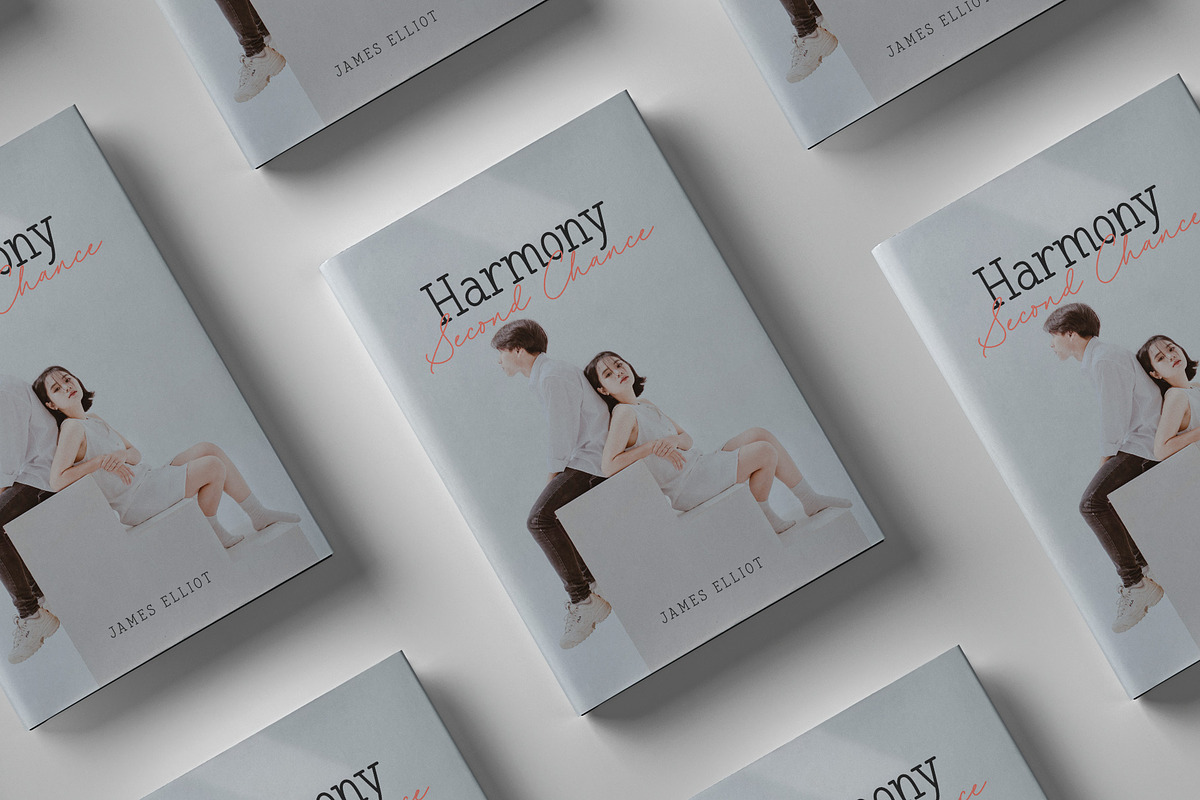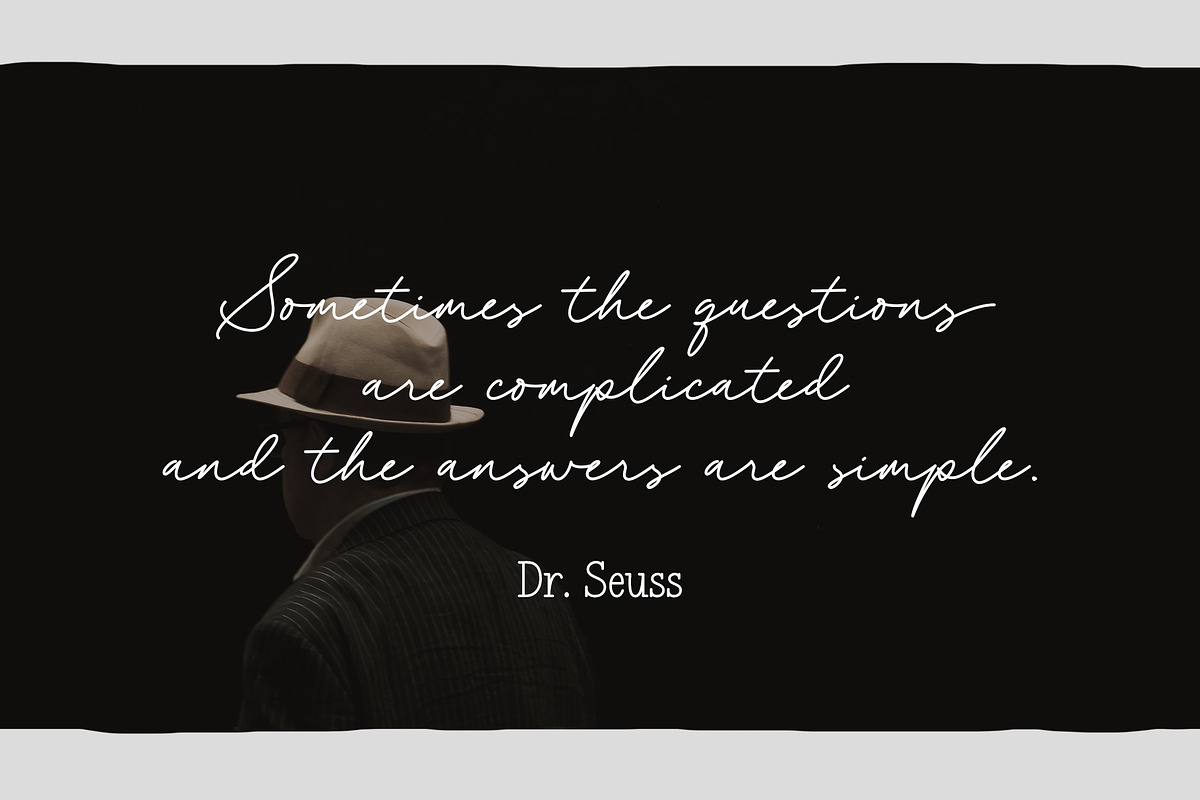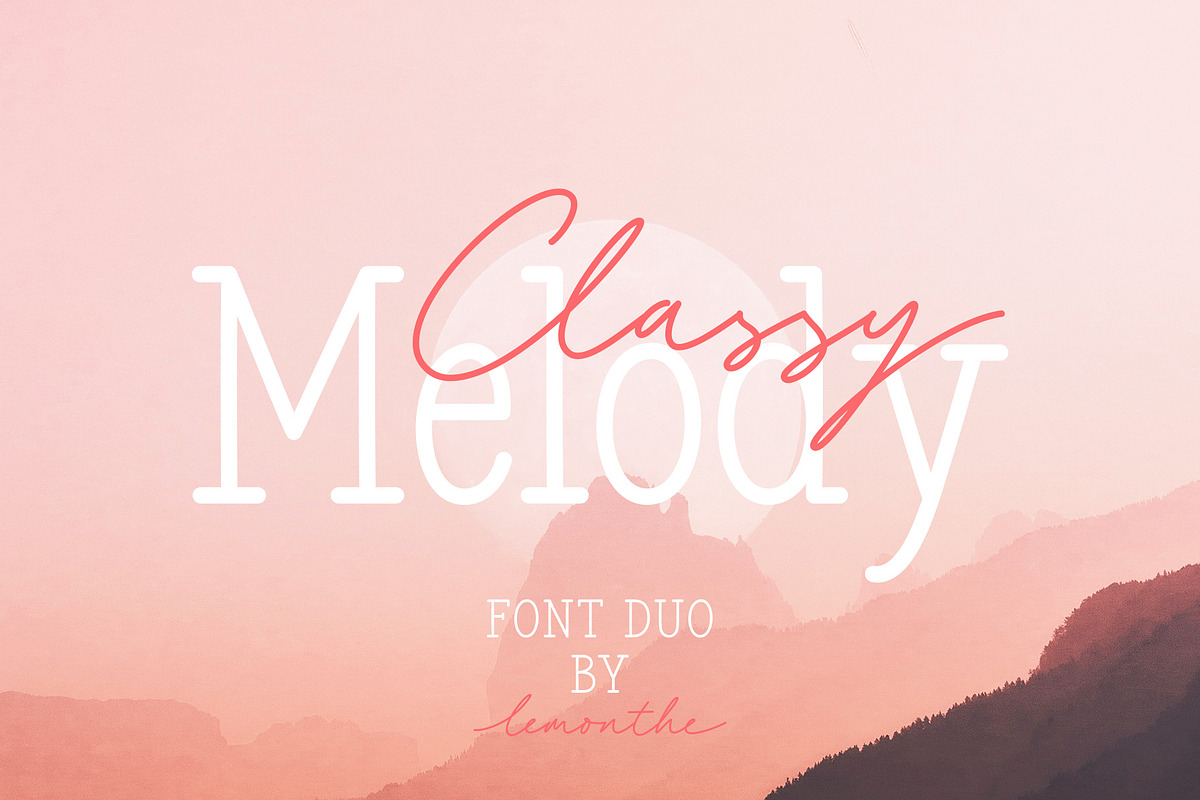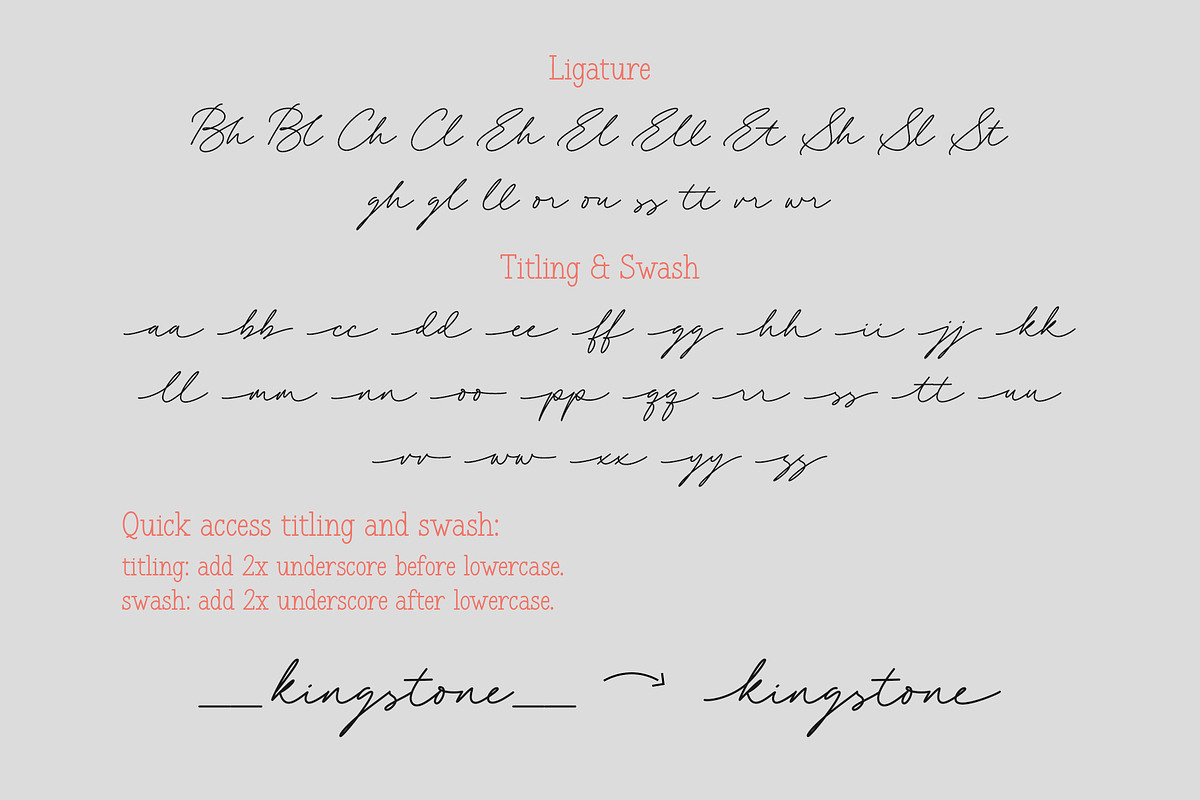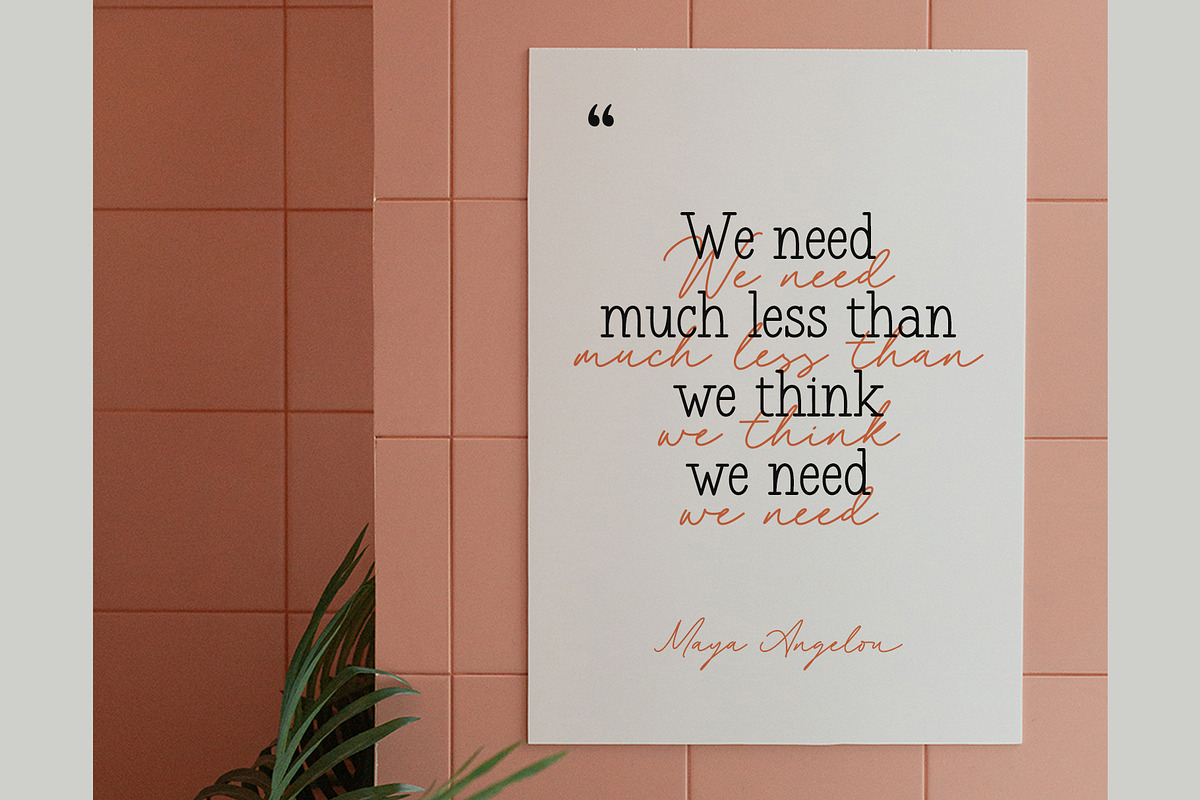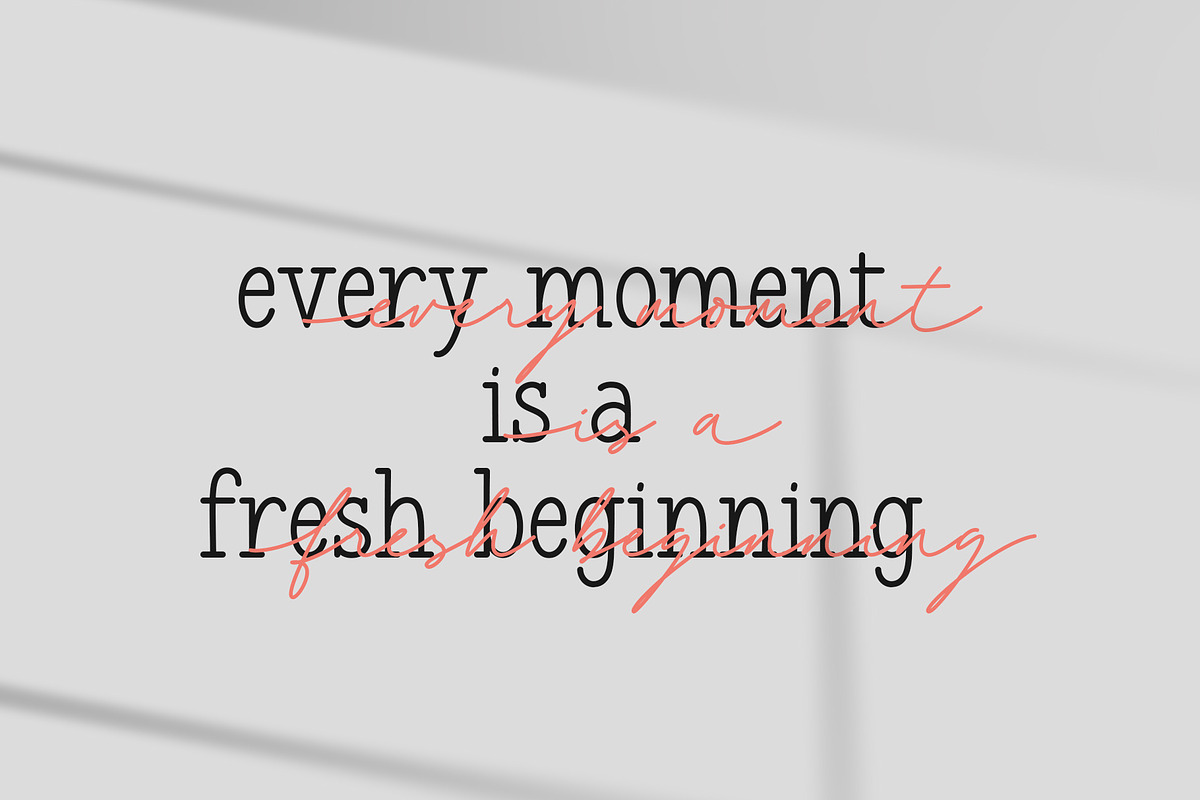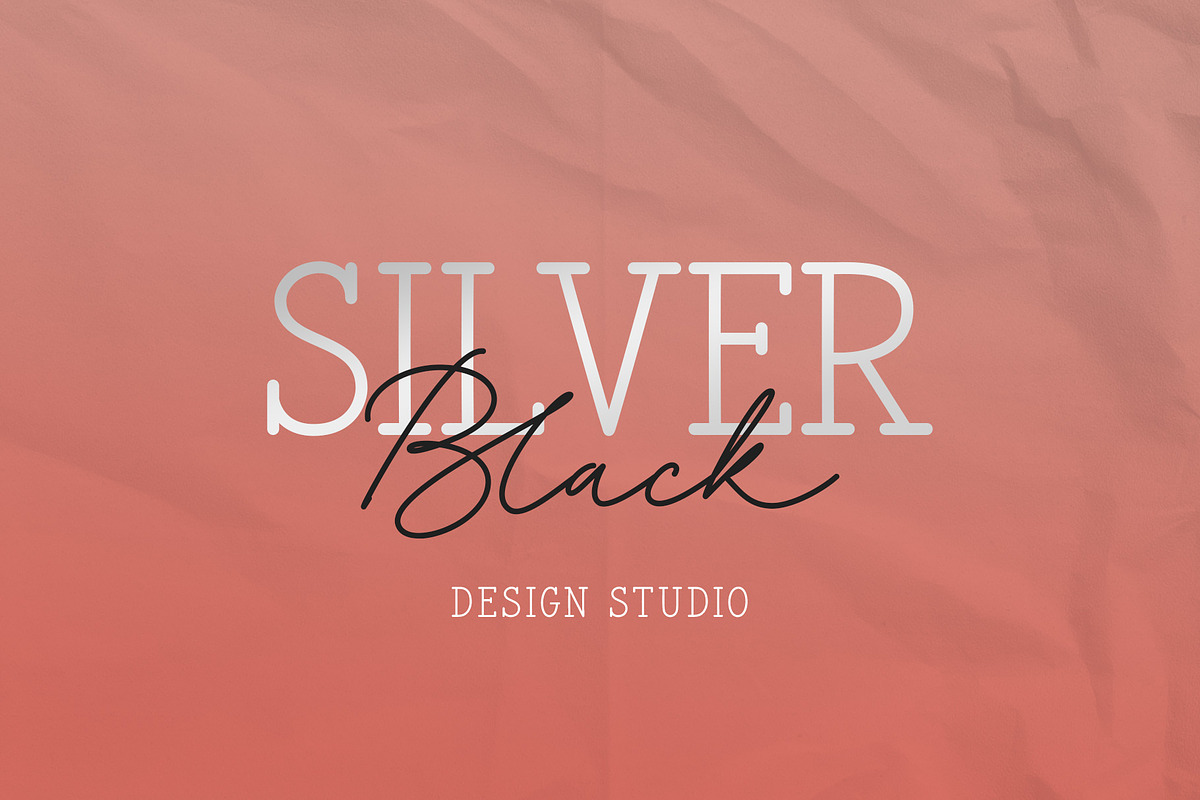
Classy Melody | Font Duo
Classy Melody is a lovely duo mix of a monoline script and slab serif font. Combining these two fonts on your next design will give a modern feel. It is perfect for many different projects such as logos & branding, invitation, stationery, wedding designs, signature, product designs, labels, photography, and much more!
- Serif & Script
- Titling
Quick access
- Titling: Add 2x underscore before lowercase a-z. Ex: __a
- Swash: Add 2x underscore after lowercase a-z. Ex: a__